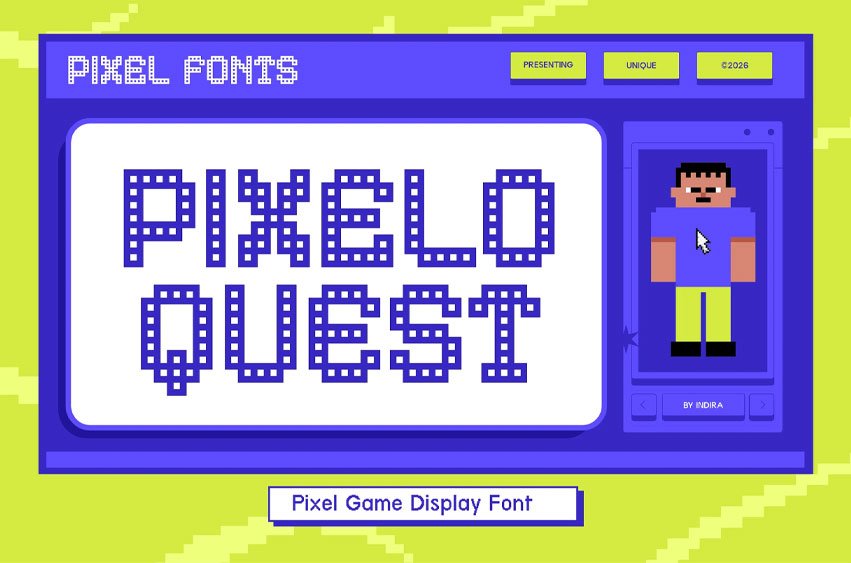
Pixelo Quest Font is a pixel font crafted to deliver a bold gaming identity with a strong retro arcade influence. Designed with a unique dotted bitmap style, this display font captures the excitement of classic game worlds while bringing a fresh and energetic digital look. Its playful yet structured form creates a distinctive visual rhythm that feels alive, making it perfect for projects that want to stand out in the gaming and tech space.
Built for game titles, gaming assets, UI systems, and digital branding, Pixel Quest gives your design a powerful and immersive presence. The font shines in arcade-inspired layouts, coding visuals, and futuristic concepts that demand clarity and character at the same time. Whether you’re developing an indie game, launching a gaming brand, or creating bold promotional visuals, Pixel Quest delivers a striking pixel font experience that feels both nostalgic and highly marketable.